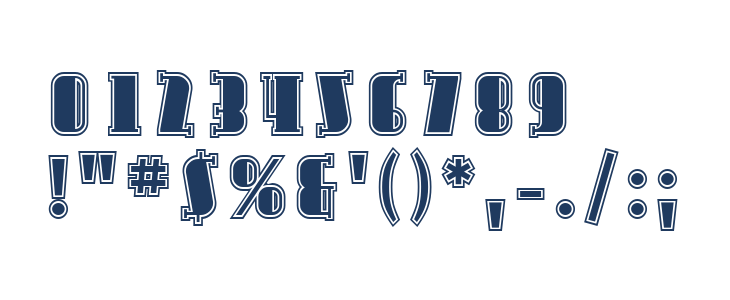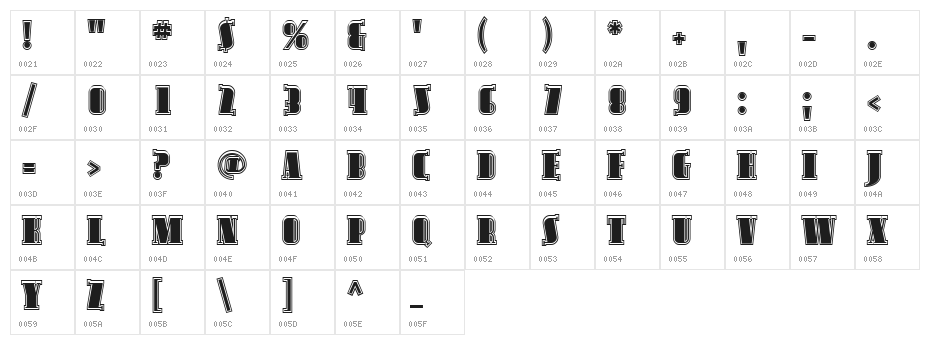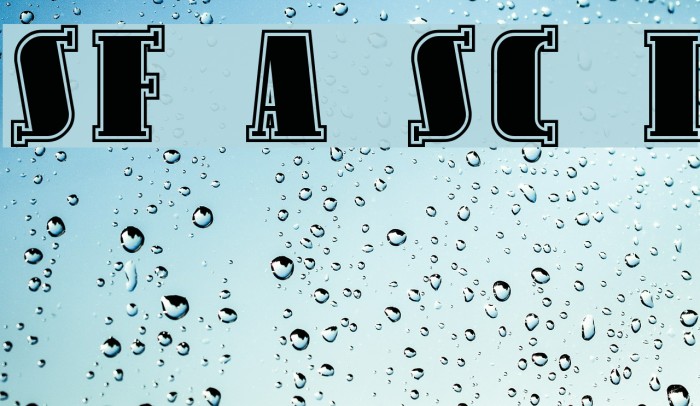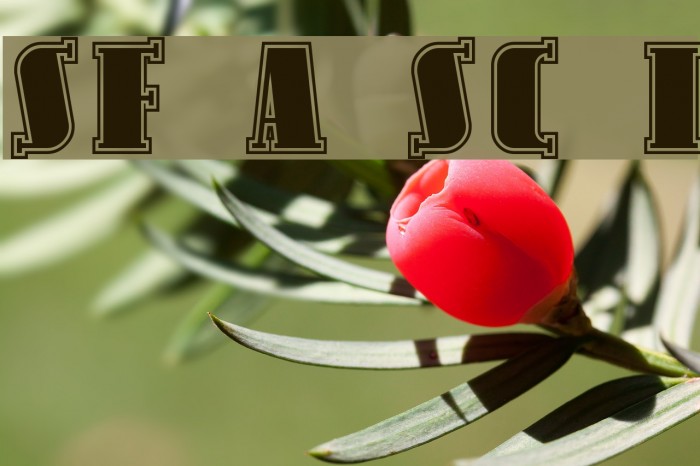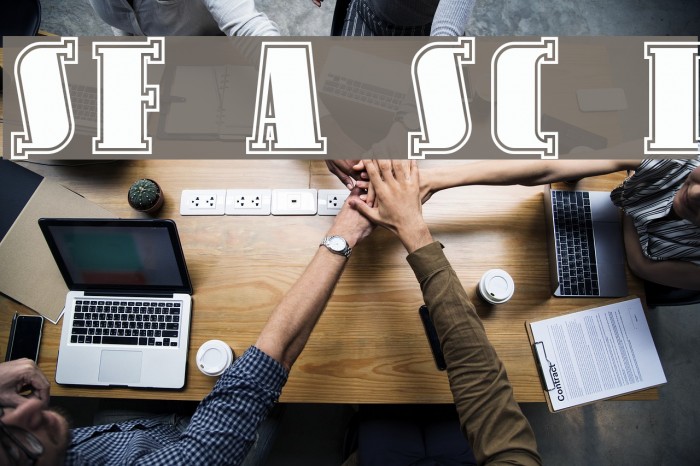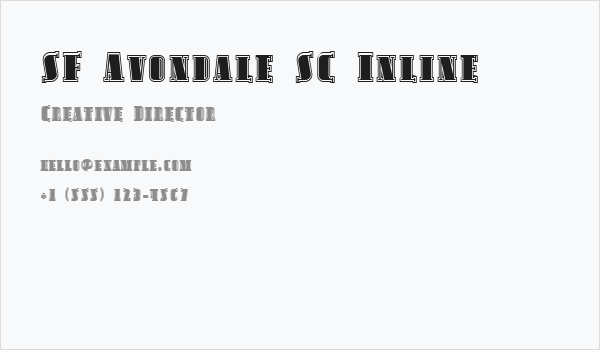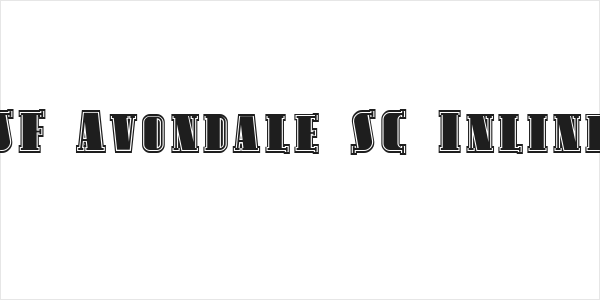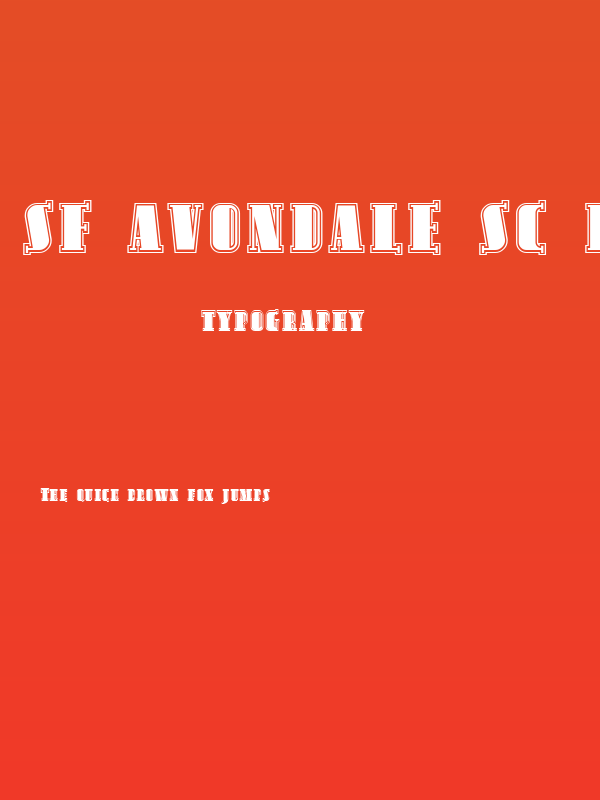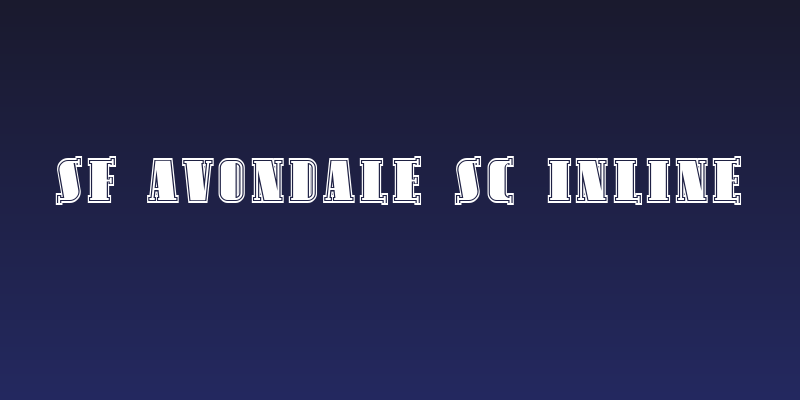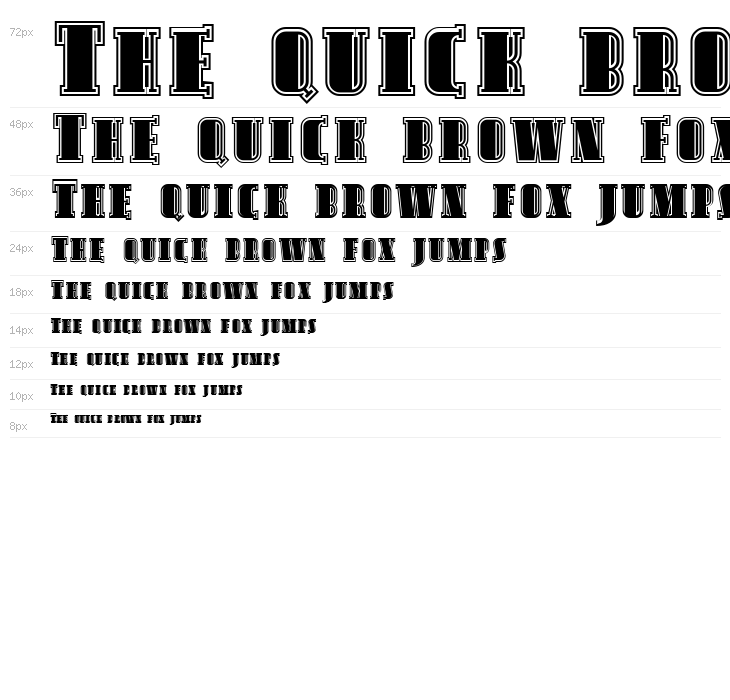
SF Avondale SC Inline Font
SF Avondale SC Inline Description
This font features a bold, decorative style with an inline design that adds depth and dimension to each character. The uppercase letters are robust and commanding, with sharp serifs and a distinct shadow effect that enhances their visual impact. The numerals and special characters maintain this bold aesthetic, ensuring consistency across all glyphs. The inline detail creates a striking contrast between the thick outer strokes and the thinner inner lines, making it ideal for attention-grabbing headlines and titles. Its unique style is reminiscent of vintage signage, offering a nostalgic yet modern appeal.
| Proposed Projects | Ideal for poster designs, branding projects, vintage-themed events, and signage. |